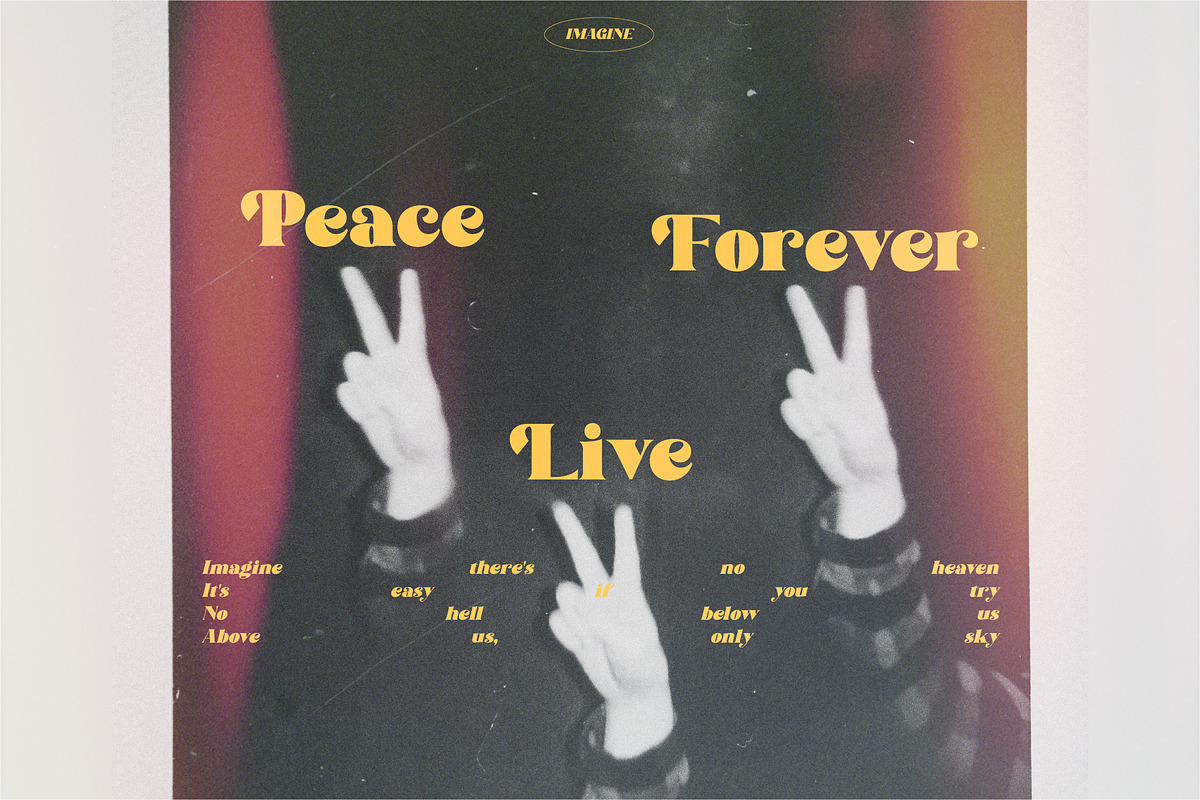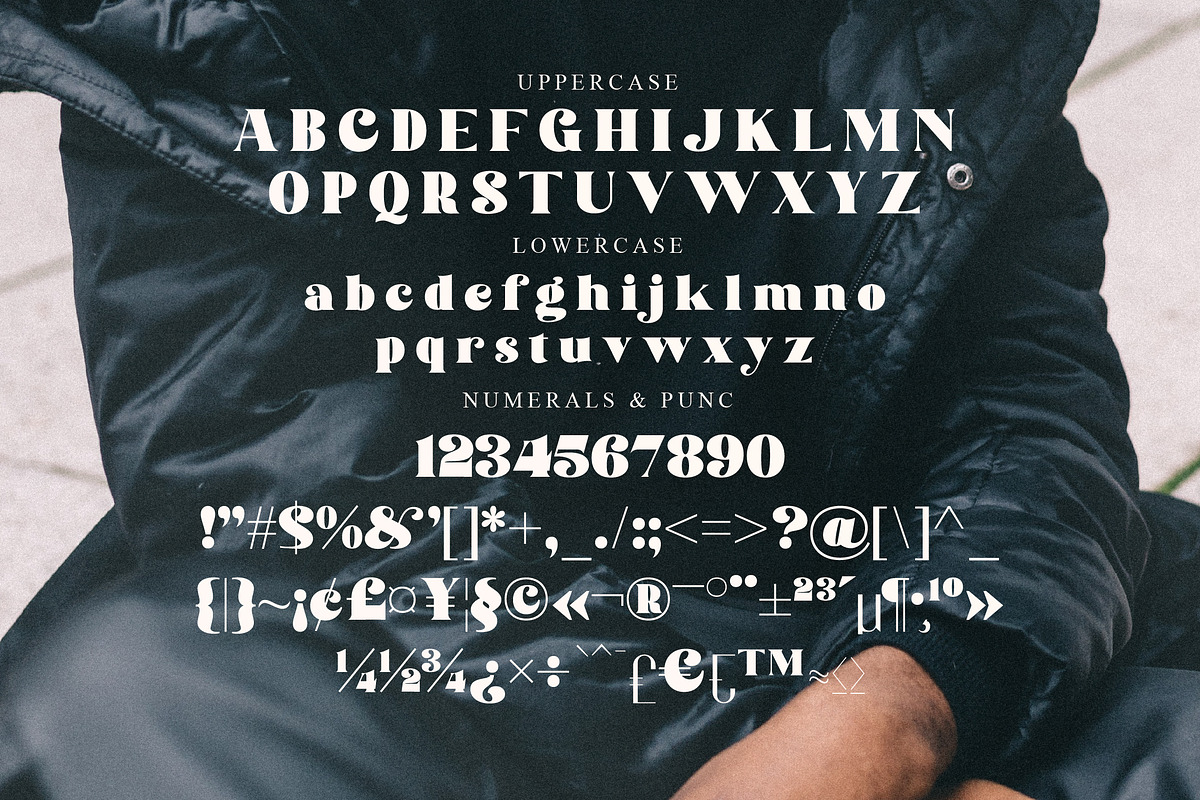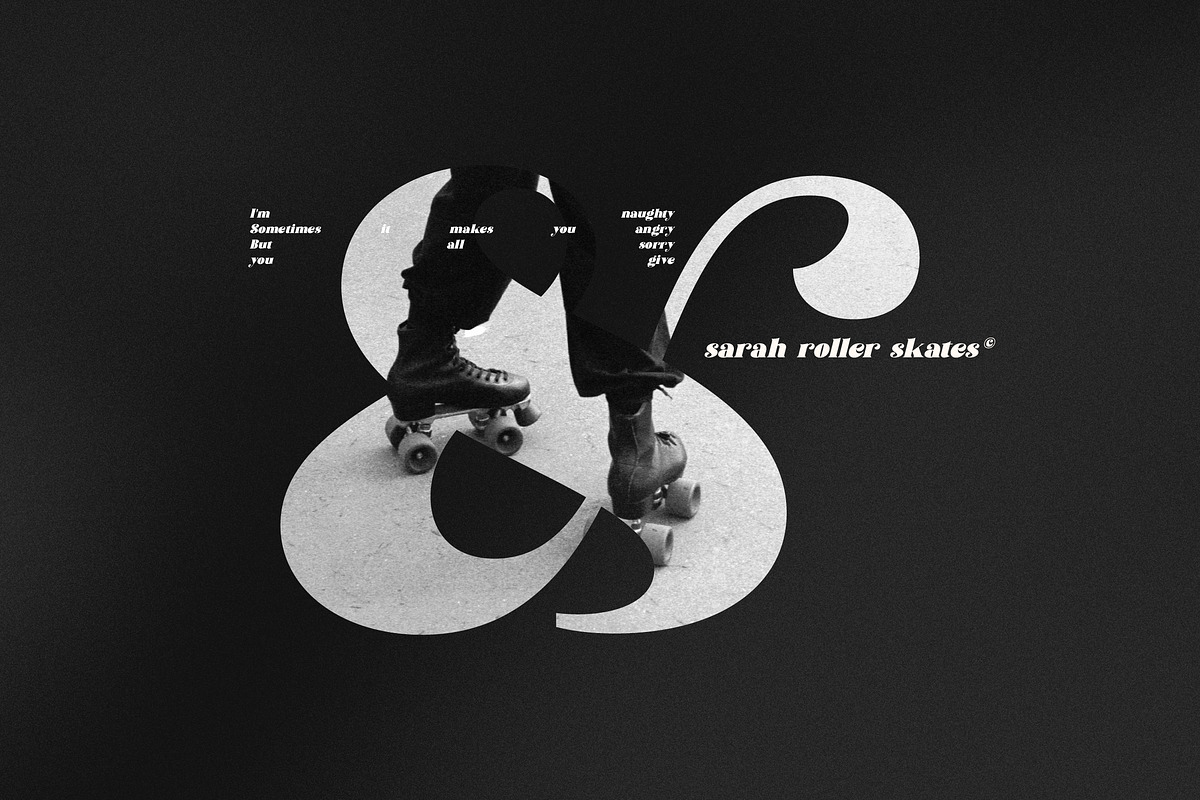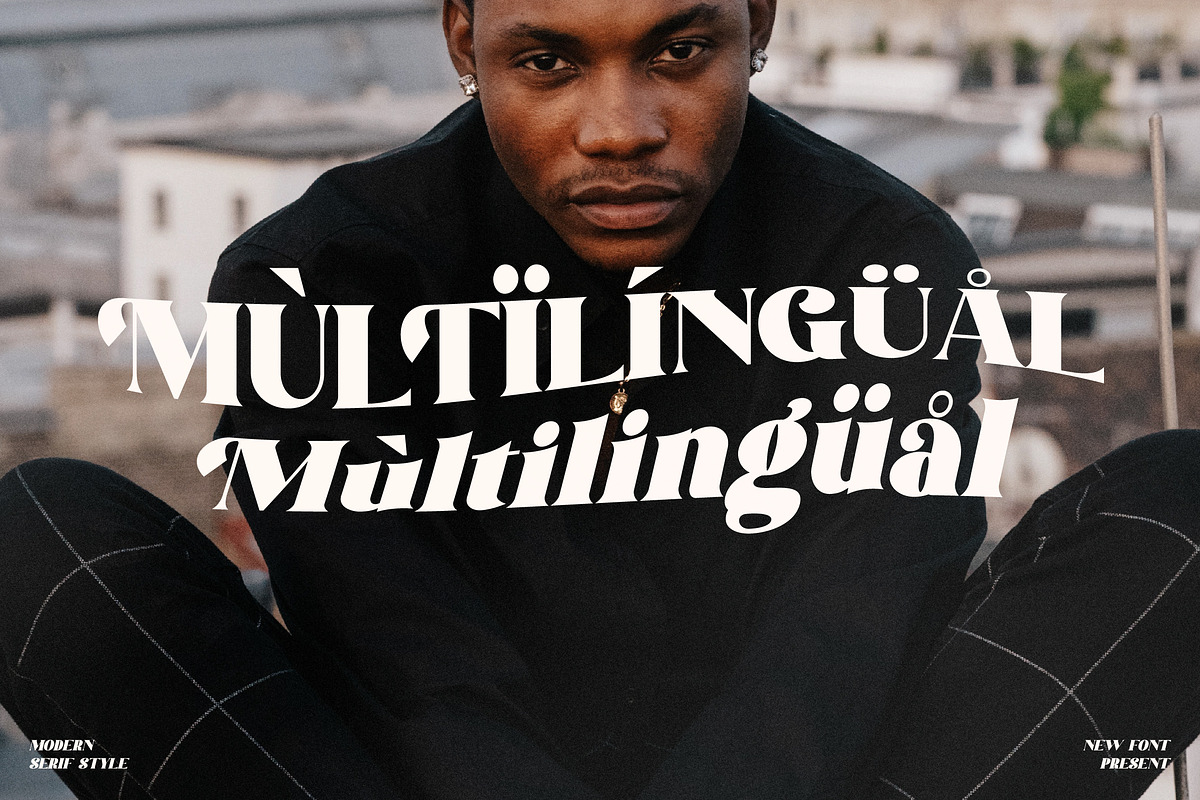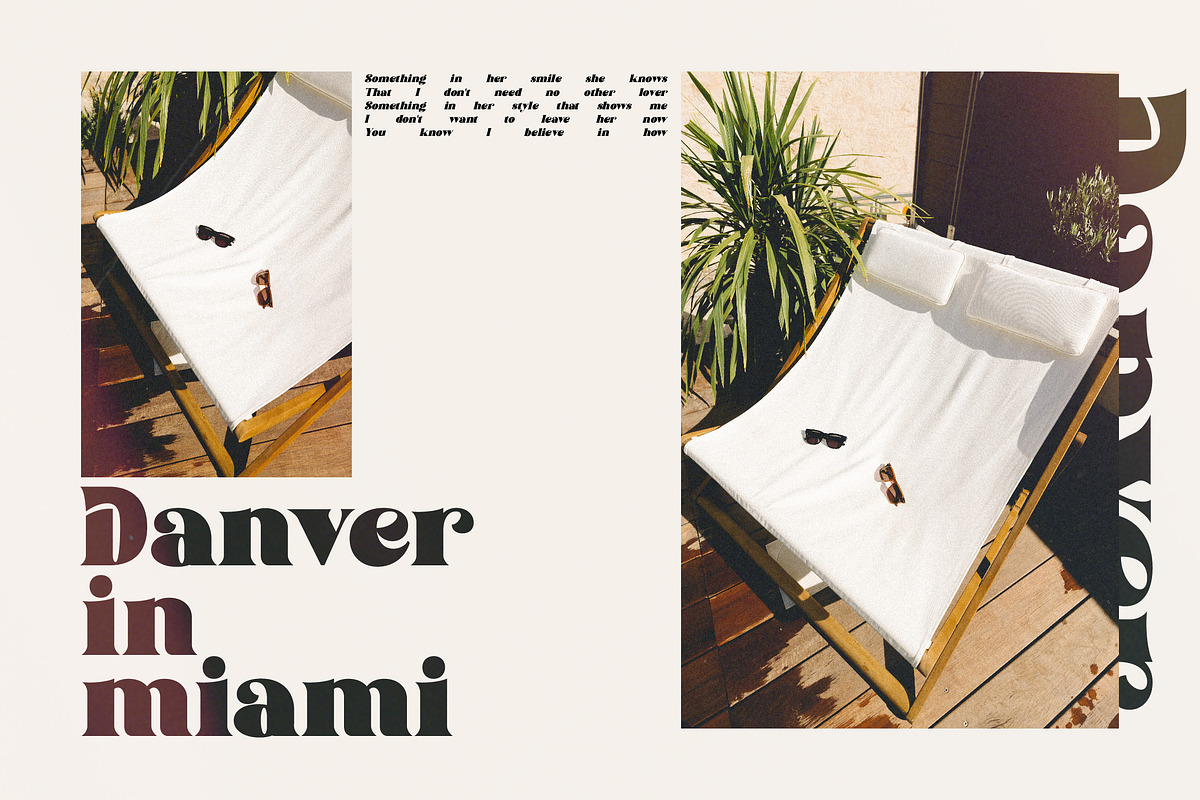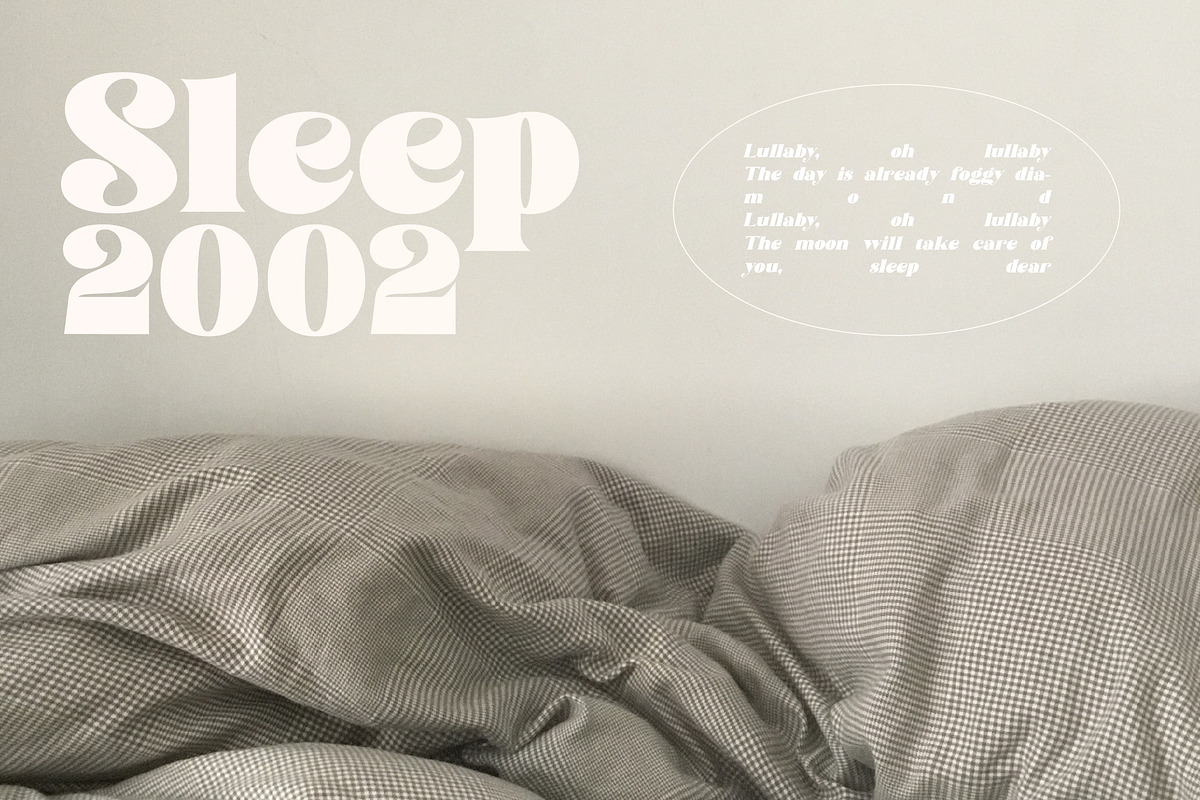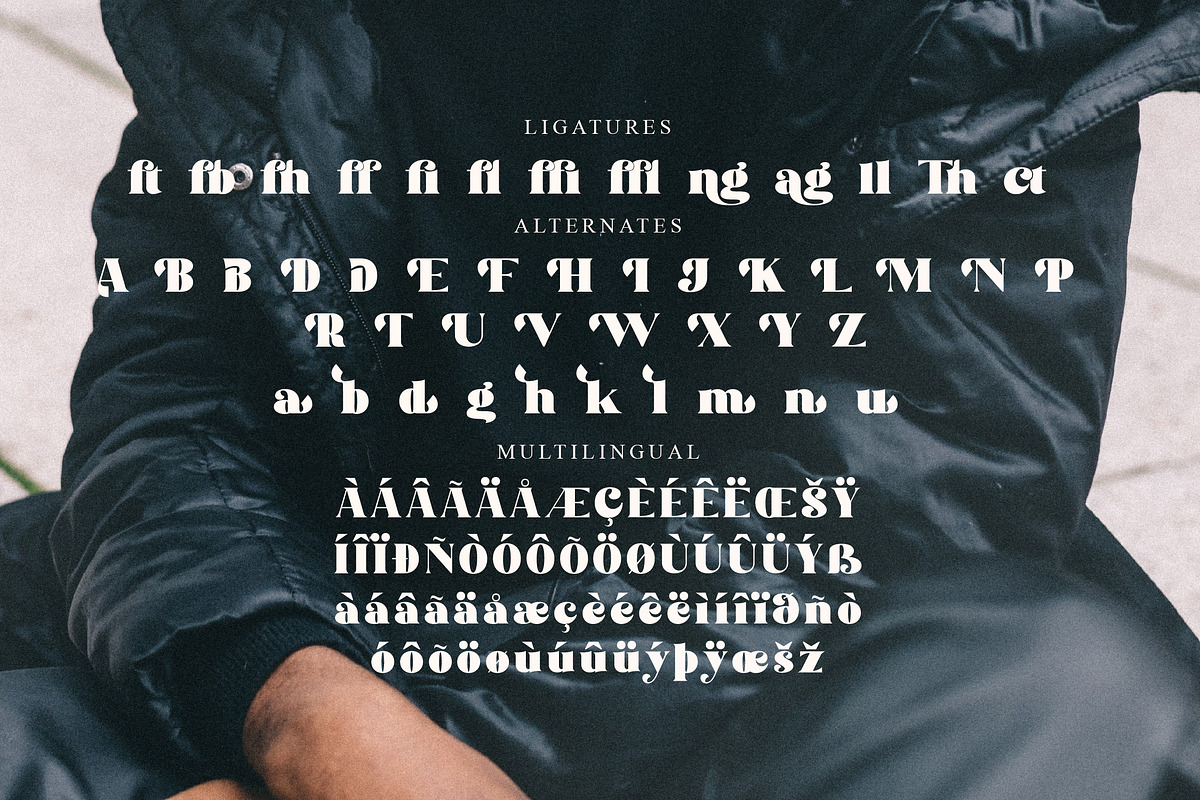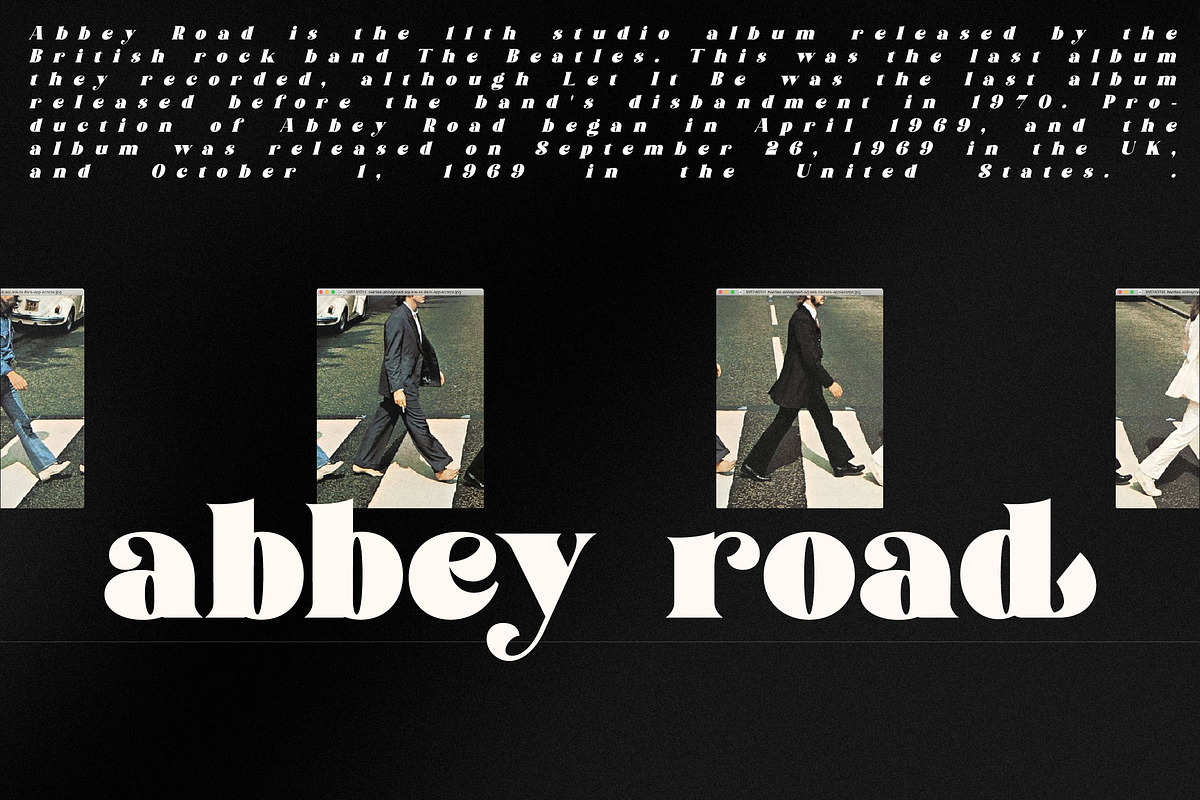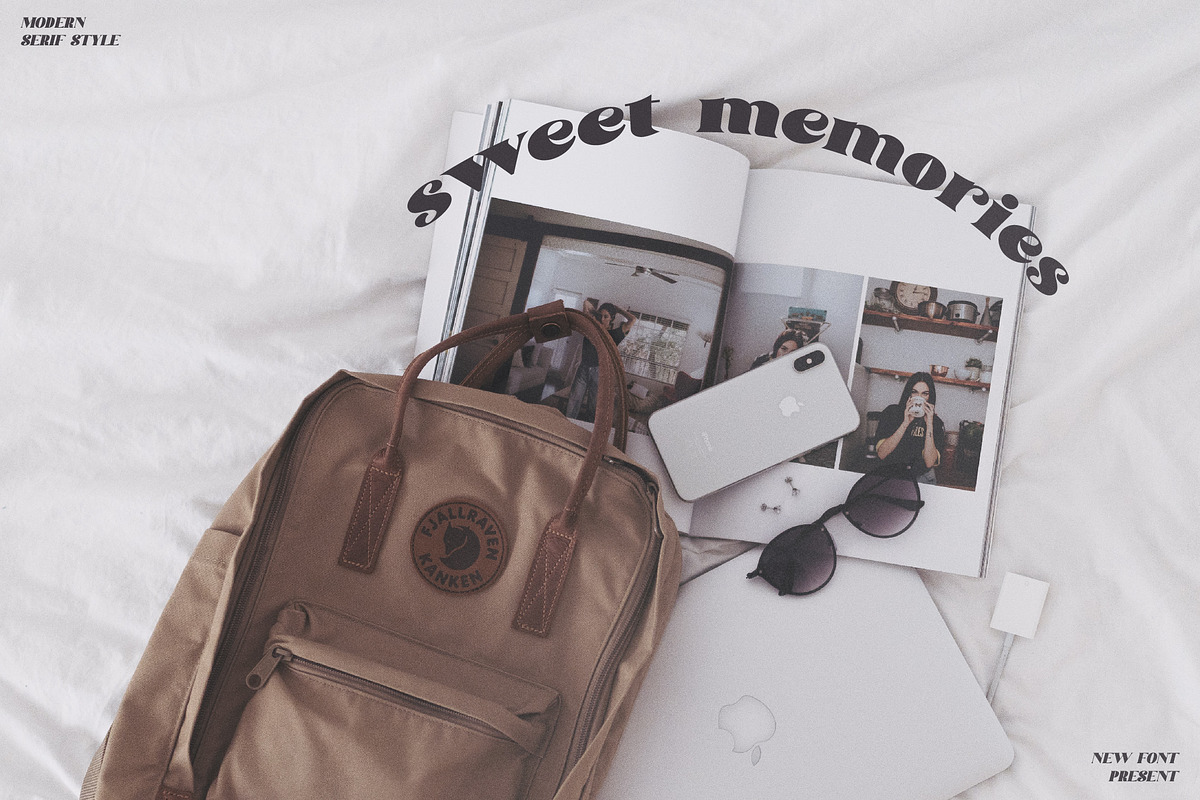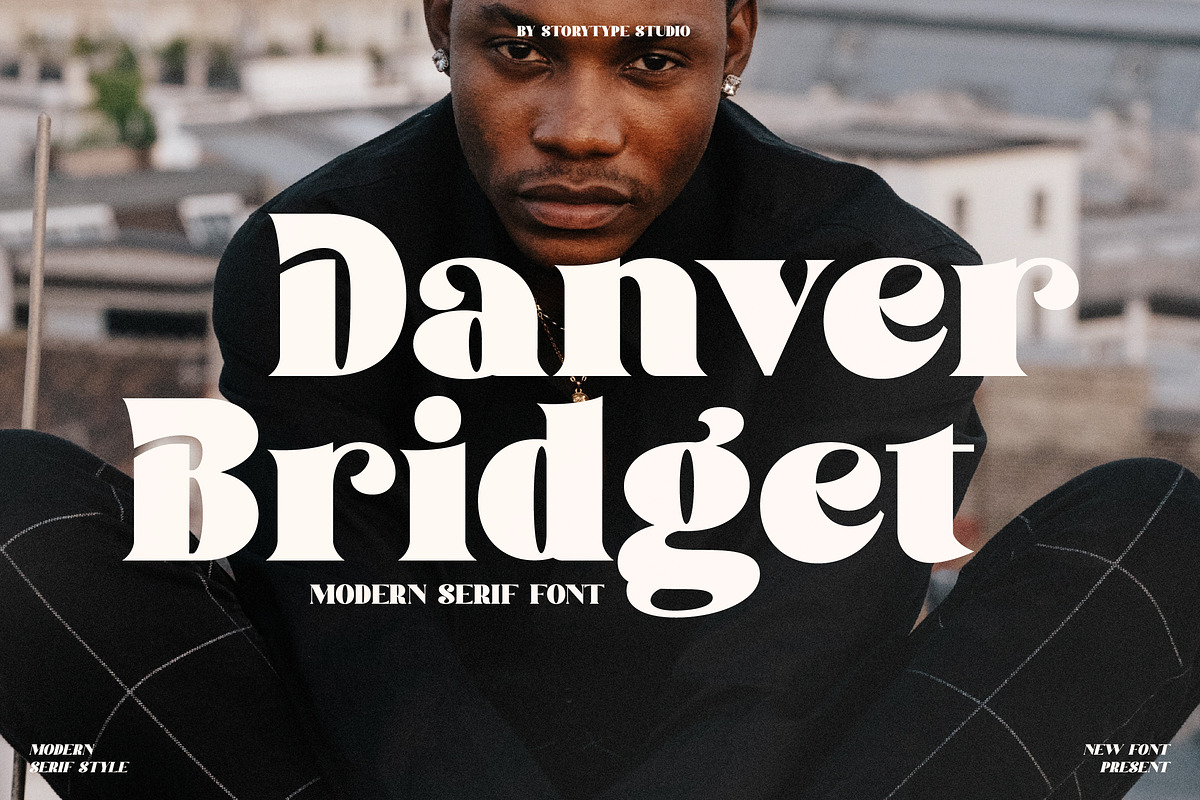
Danver Bridget Modern Serif Font
Proudly present Danver Bridget Typeface , created by Storytype, A serif modern and classic typeface that has own unique style & modern look. This typeface is perfect for an elegant & luxury logo, book or movie title design, fashion brand, magazine, clothes, lettering, quotes, and so much more.